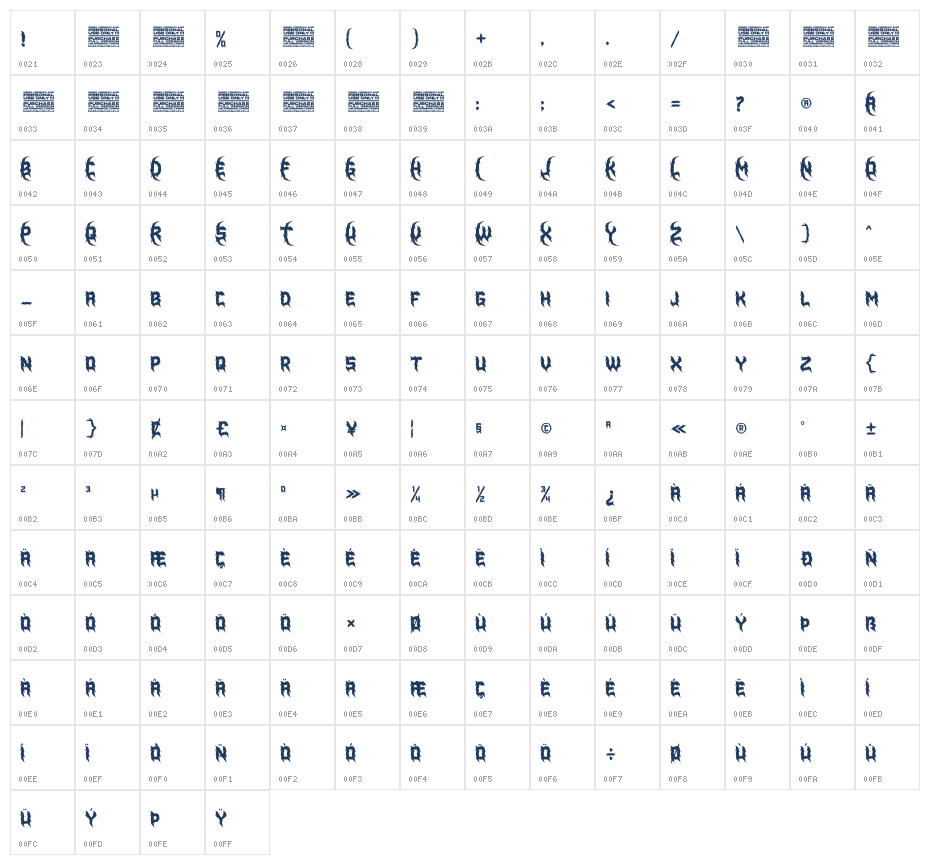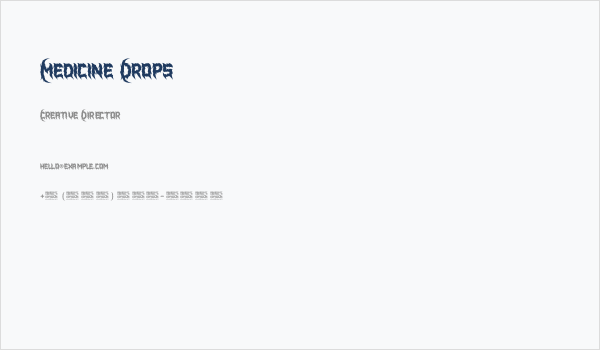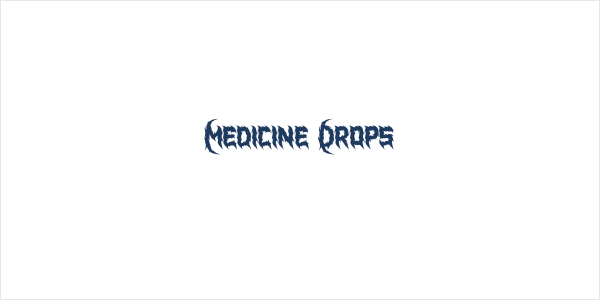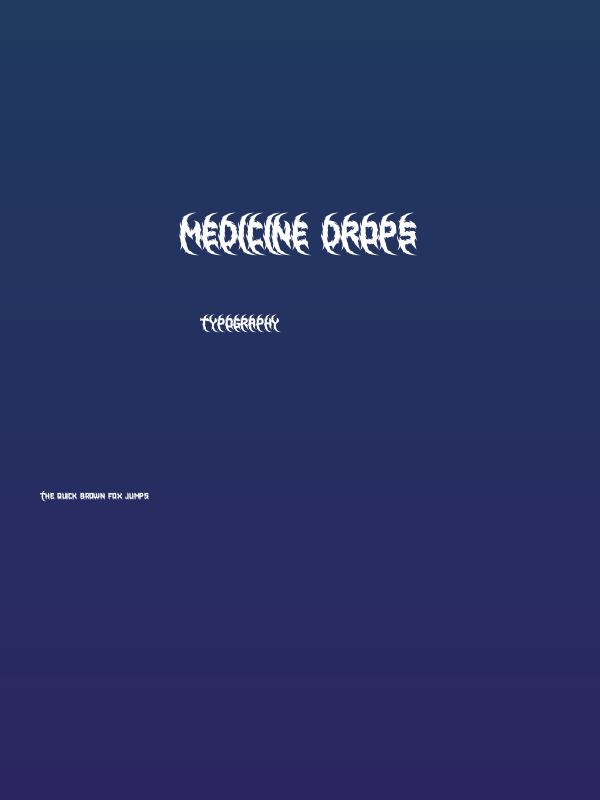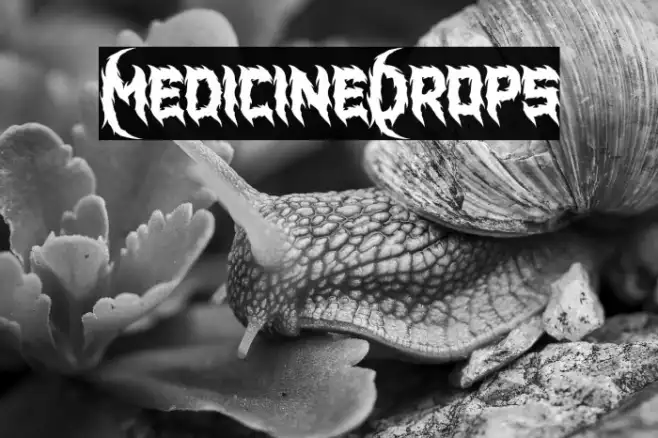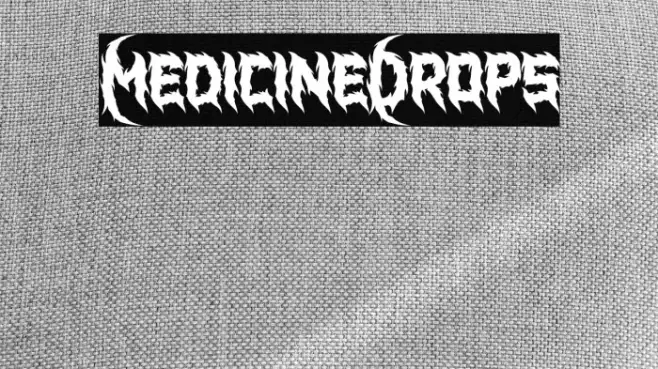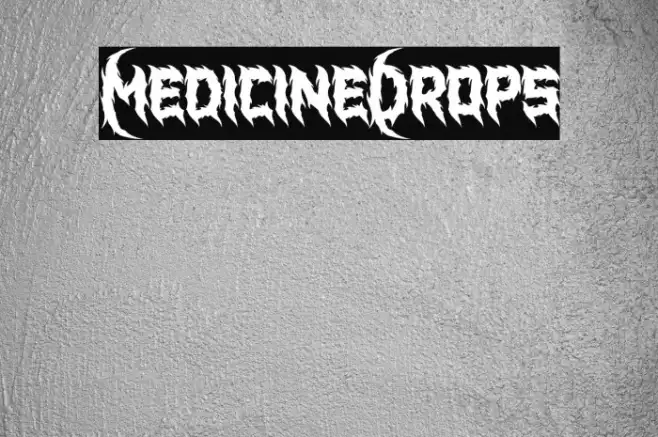
Medicine Drops Font
Medicine Drops Description
A decorative, jagged, horror-themed font with sharp, irregular edges resembling flames or claws.
Medicine Drops
| Overall Style | Horror, Edgy, Dramatic |
| Use Case | Headlines, Titles, Posters |